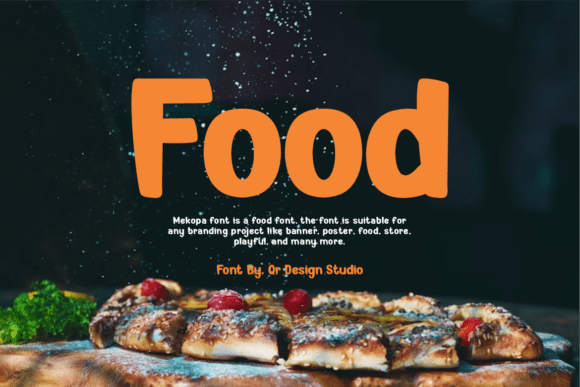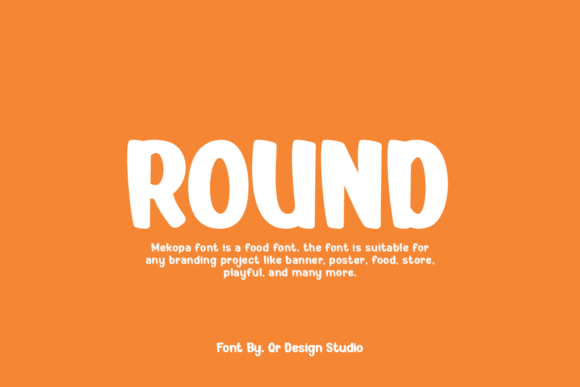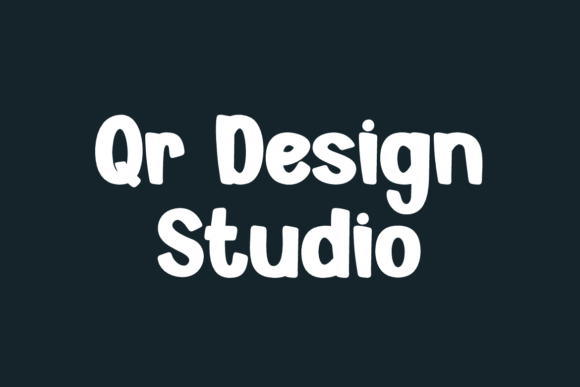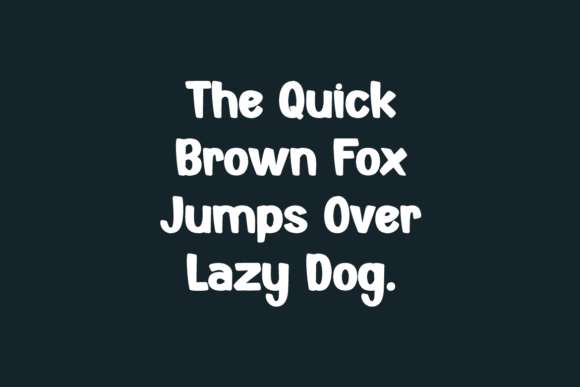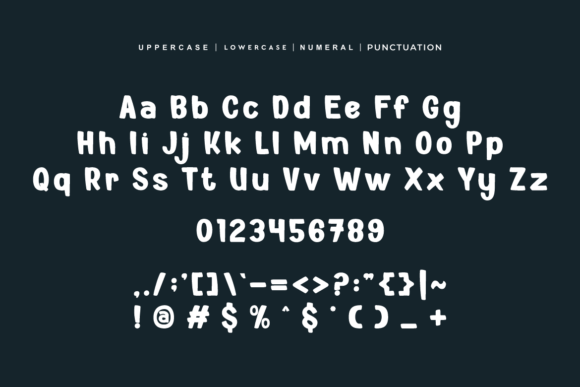
Introduction to Mekopa Font
Remember the moment you stumbled upon the perfect font for your creative project? The one that instantly elevated your design and captured the essence of your idea? For designers seeking a high-quality, playful typeface that adds a dash of warmth and friendliness to their work, we’re excited to introduce you to Mekopa Font. This delightful display font is designed to bring a sense of fun and approachability to your designs, making it an ideal choice for food-related themes and cheerful branding.
As a valuable resource for designers, Mekopa Font offers a free download option, allowing you to easily incorporate its delicious design into your projects. Whether you’re creating a restaurant menu, bakery packaging, or social media graphic, Mekopa Font’s versatile style ensures a lighthearted, tasty vibe that’s sure to leave a lasting impression.
Mekopa Font
- High-quality font design resource, ideal for creative projects and designs requiring a unique aesthetic.
- Includes a range of characters, including uppercase and lowercase letters, numbers, and special symbols, making it a versatile design resource.
- Unique characteristics: The Mekopa Font features a distinctive, hand-drawn style with subtle texture and imperfections, adding a touch of personality to any design.
Honest Review: Mekopa Font
I recently had the chance to try out the Mekopa Font, and I must say it’s a great addition to any designer’s toolbox. The font is free to download and offers a high quality design resource perfect for creative projects.
One of the things that stands out about the Mekopa Font is its versatility. It’s available in a range of styles and weights, making it easy to find the perfect fit for your design. The font also features a transparent background, which is a big plus for designers who want to easily layer their designs.
Here are some of the things that work well about the Mekopa Font:
- Available in a range of styles and weights
Overall, I’m impressed with the Mekopa Font. It’s a great resource for designers who need a high-quality font for their creative projects. With a little bit of creativity, you can use the Mekopa Font to take your designs to the next level. ✨
To get the most out of the Mekopa Font, try experimenting with different font sizes, colors, and combinations. You can also use it to create unique titles, headings, and even logos.
The Mekopa Font is ideal for:
- Graphic design projects
- Infographic design
- Brochure design
Alternatives to Mekopa Font
Compared to Mekopa Font, Great Vibes Font has a more refined, elegant feel that’s perfect for formal, creative projects. While Mekopa Font has a more modern, edgy feel, Great Vibes Font is better suited for projects that require a touch of class.